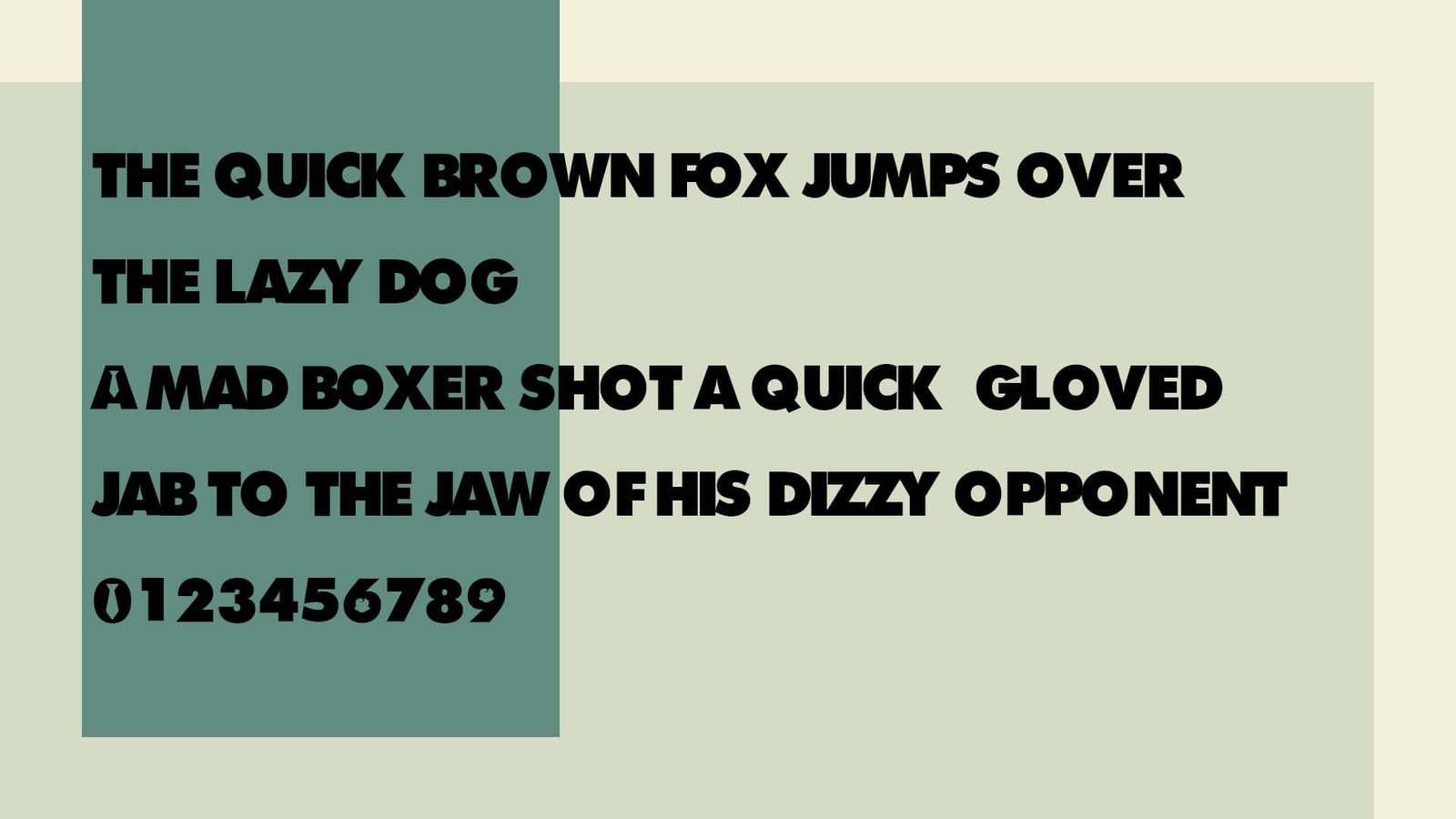
Imagine a font called “Pieces of Eight.” It’s like writing that feels a bit old-fashioned, like a treasure map. The letters are bold and have a classic style, making your words stand out with a touch of adventure.
If you’re looking for a font that adds a bit of pirate charm or a sense of mystery to your writing, Pieces of Eight could be just the thing. It’s like setting sail on a sea of words with a map to guide you.